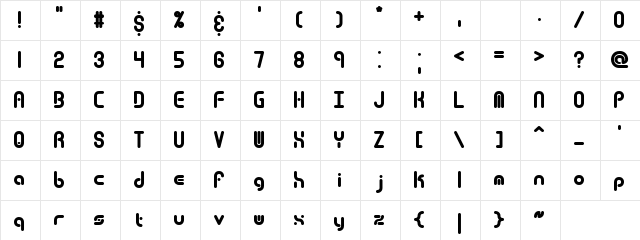
Alphonsa Seed Regular
Design Context for Alphonsa Seed Typeface
Alphonsa Seed is a composed and adaptable typeface that performs quietly and consistently across a wide range of design contexts.